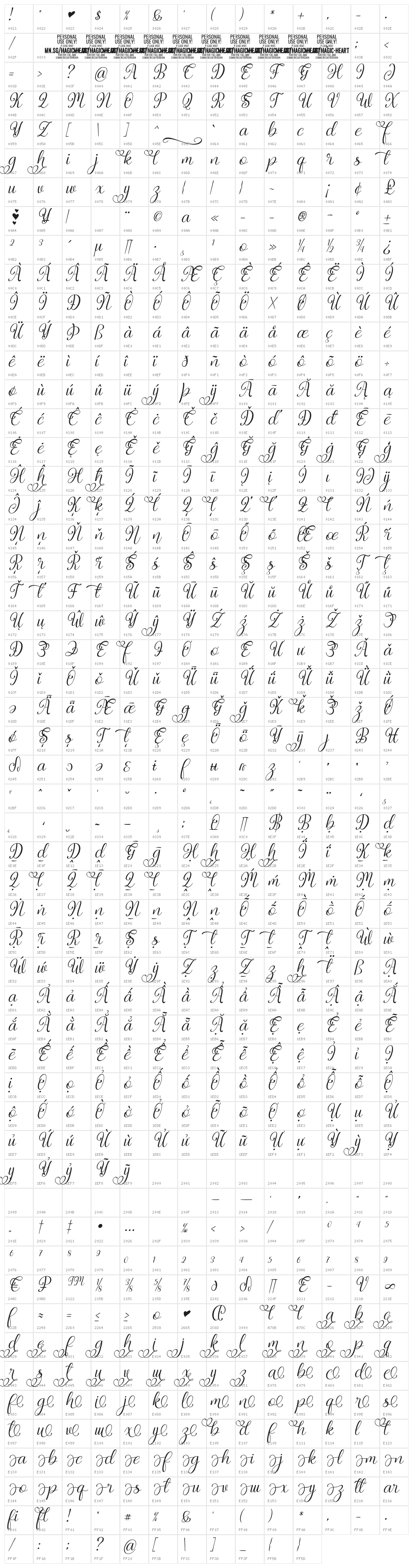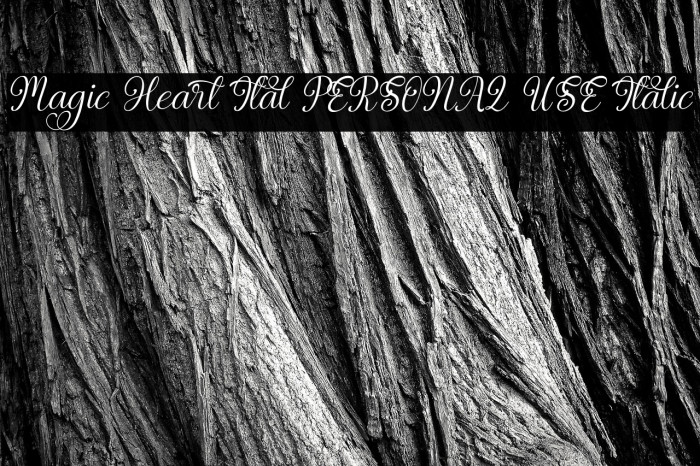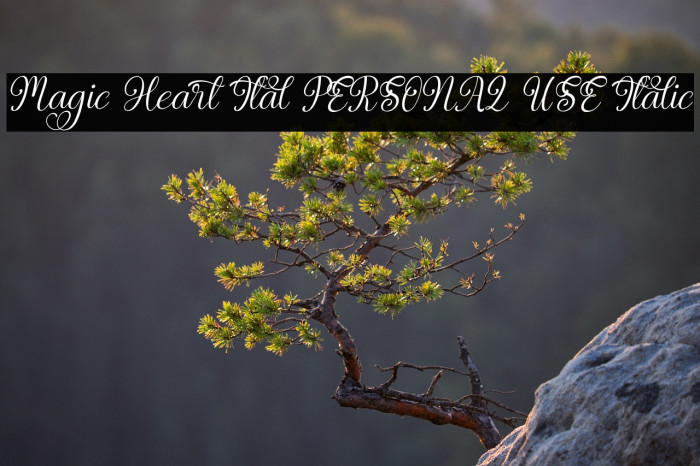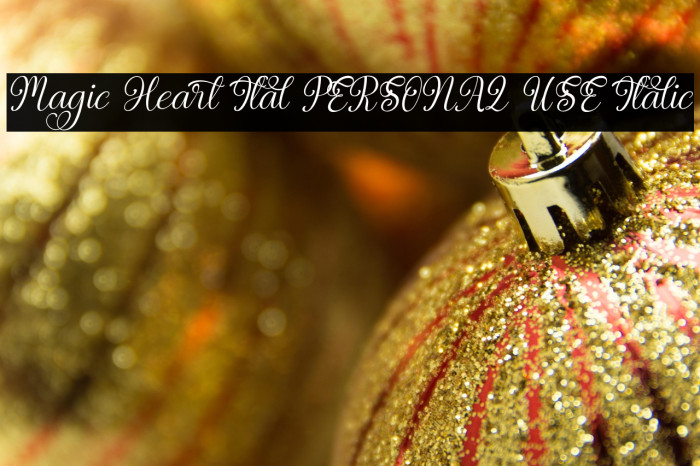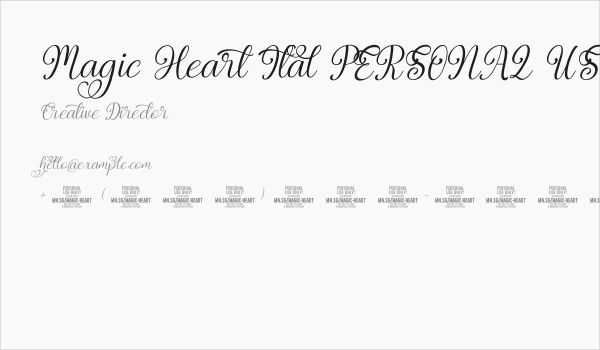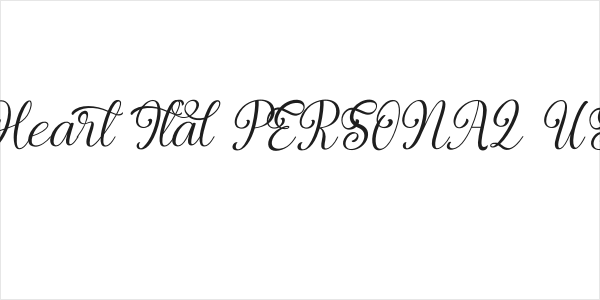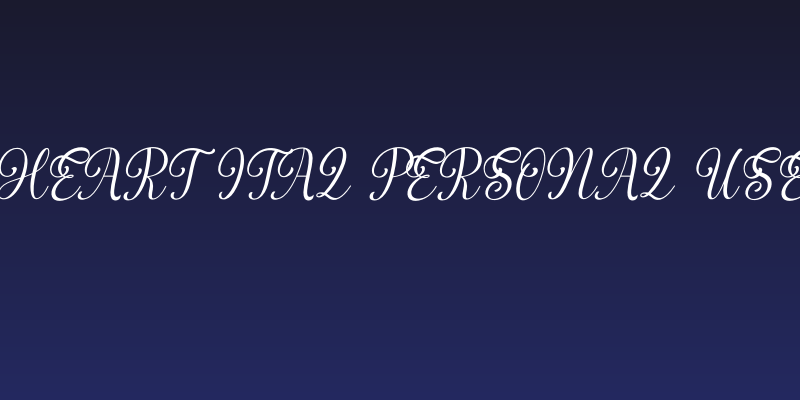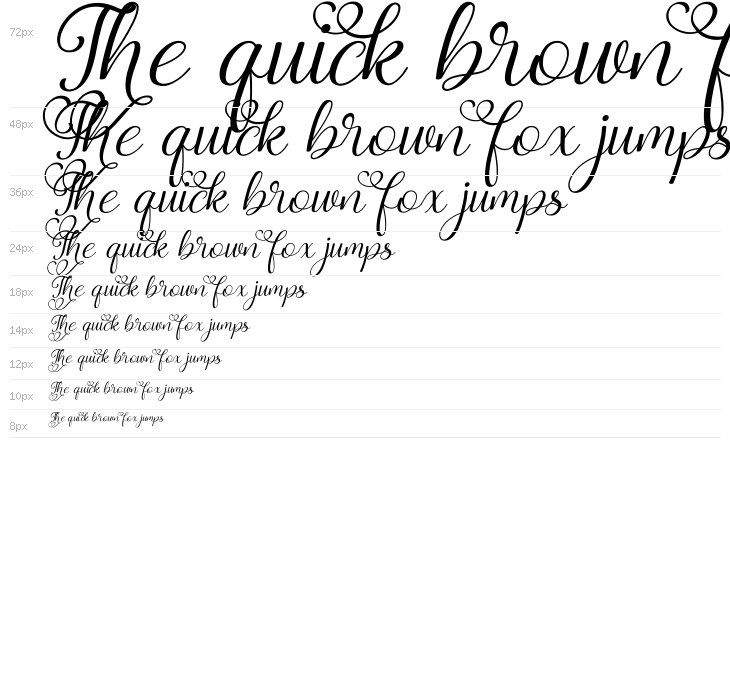
Magic Heart Ital PERSONAL USE Italic Font
Magic Heart Ital PERSONAL USE Italic Description
This elegant script font features flowing, interconnected letters with a romantic and whimsical flair. The uppercase letters are adorned with intricate swirls and loops, creating a sense of movement and grace. The lowercase letters maintain a consistent style, with some characters extending below the baseline, adding to the font's ornate appearance. The numerals and special characters are designed to match the overall aesthetic, ensuring a cohesive look across all text. This font's delicate and decorative nature makes it ideal for projects that require a touch of sophistication and charm.
| Proposed Projects | Wedding invitations, greeting cards, branding for luxury products, romantic quotes, and decorative signage. |